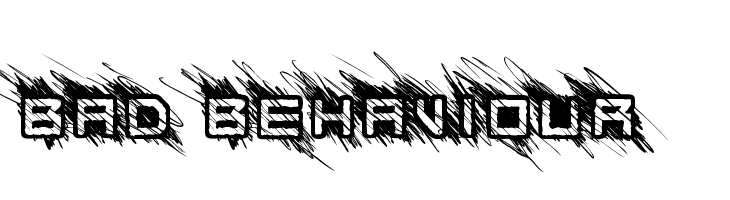
( Fonts by Irina ModBlackmoon )
A bold, graffiti-style font with a distressed, scribbled texture.
A bold, distressed font with rough, textured edges and a grungy appearance.
( Fonts by Cumberland Fontworks )
A bold, vintage-style font with striped patterns and a decorative flair.
( Fonts by David Kerkhoff - www.hanodedphotography.com )
A bold, distressed font with a paint-splattered, grunge style.
( Fonts by www.dcoxy.com )
A bold, rugged, hand-drawn style font with a rebellious character.
( Fonts by Woodcutter )
A playful, bold font with wavy, irregular strokes and a whimsical style.
( www.dismantledesign.com )
A bold, distressed font with a rugged, vintage look.
( Fonts by Cumberland Fontworks )
A bold, vintage serif font with intricate line details and a classic appeal.
A bold, shattered glass effect font with fragmented, edgy characters.